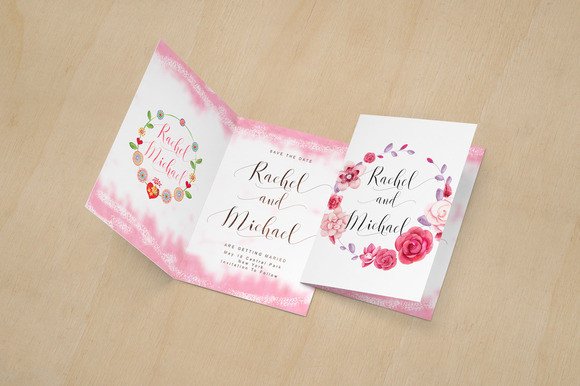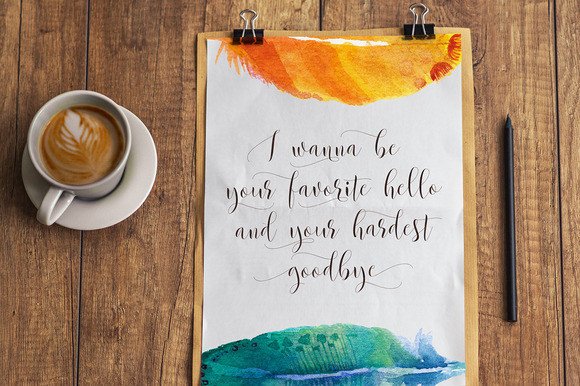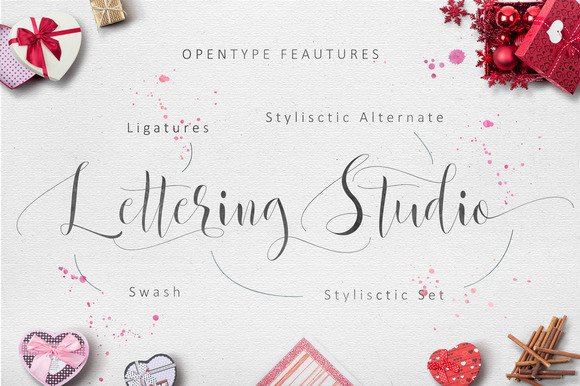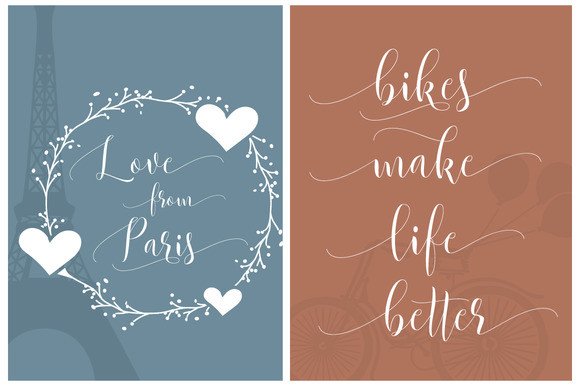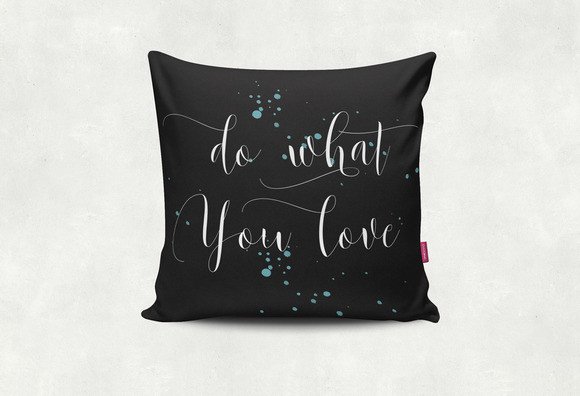
About Beautylove Font
Beautylove script is new modern calligraphy that will give your work a classic and elegant touch. It can be used for various purposes such as headings, logos, invitations, t-shirt designs, greeting cards, posters, labels, book covers, brochures, and much more!